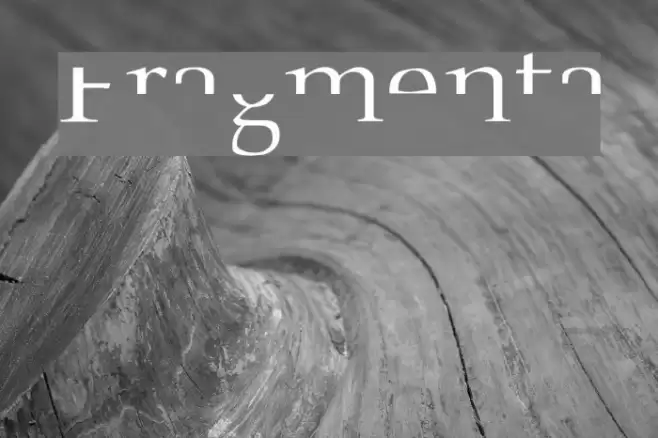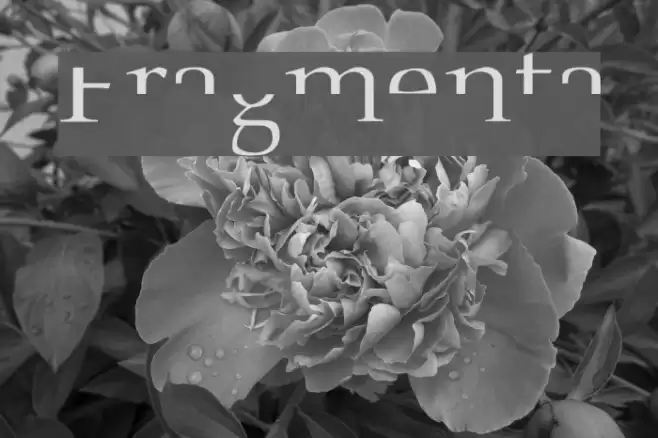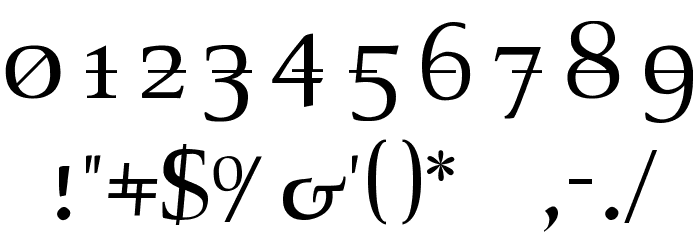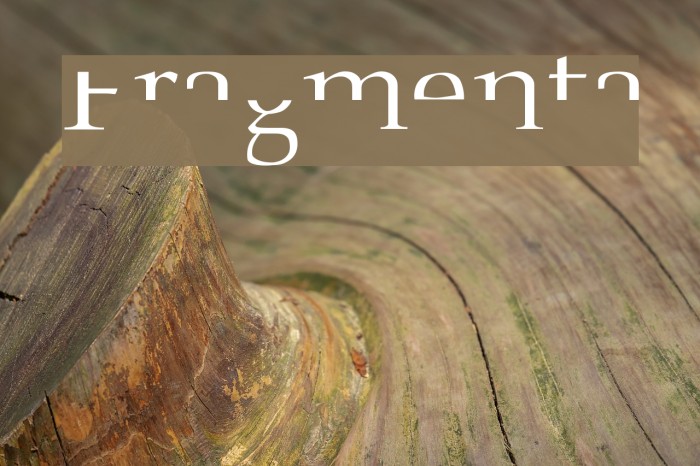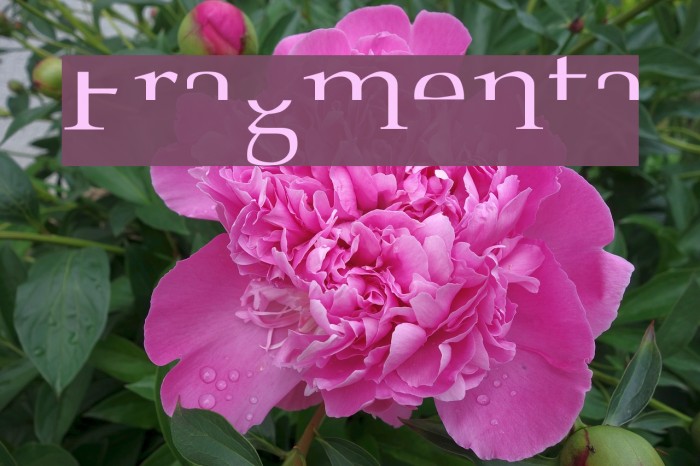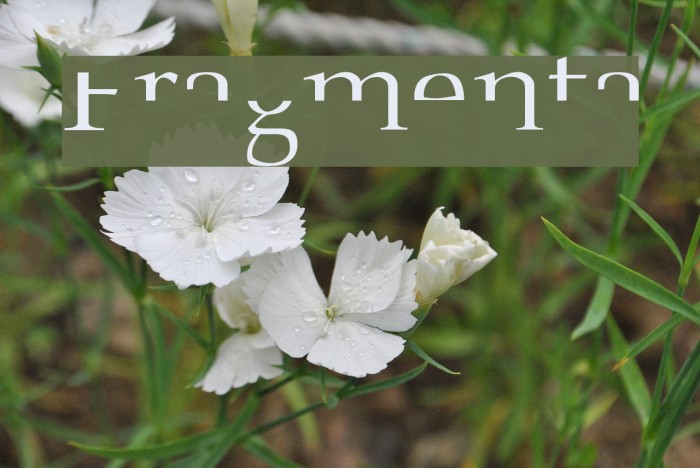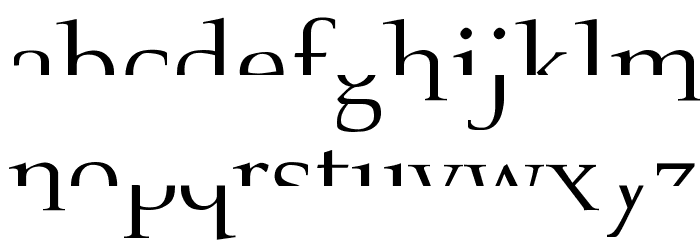
Fragmenta Font
Fragmenta Description
This font features a unique blend of modern and classic elements, characterized by its distinct geometric shapes and sharp angles. The uppercase letters exhibit a bold presence with wide, angular serifs, while the lowercase letters maintain a more fluid and dynamic form. The numerals are consistent with the overall style, providing a harmonious balance between the characters. Special characters are designed with the same attention to detail, ensuring a cohesive look throughout. The font's high contrast in stroke thickness adds to its striking appearance, making it suitable for a variety of design applications.
A modern serif font with geometric shapes and high contrast from Crazy fonts.
- Proposed Projects: Ideal for branding, editorial design, and advertising where a bold statement is needed.